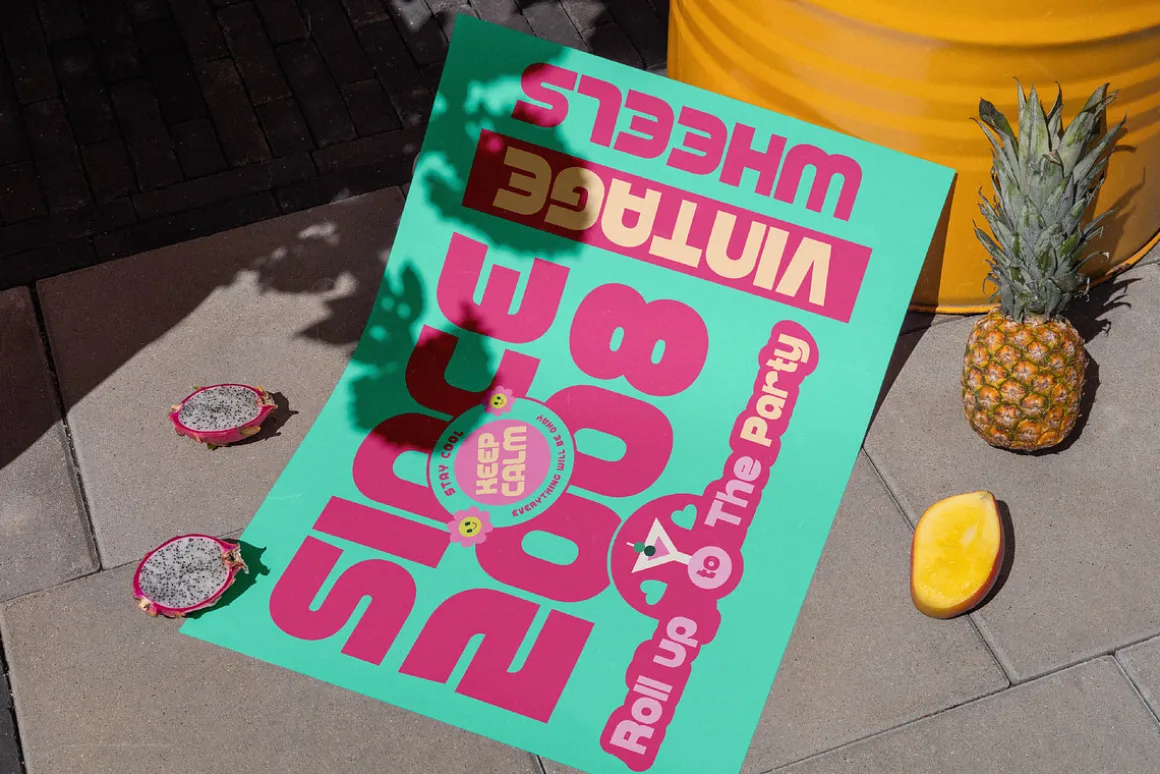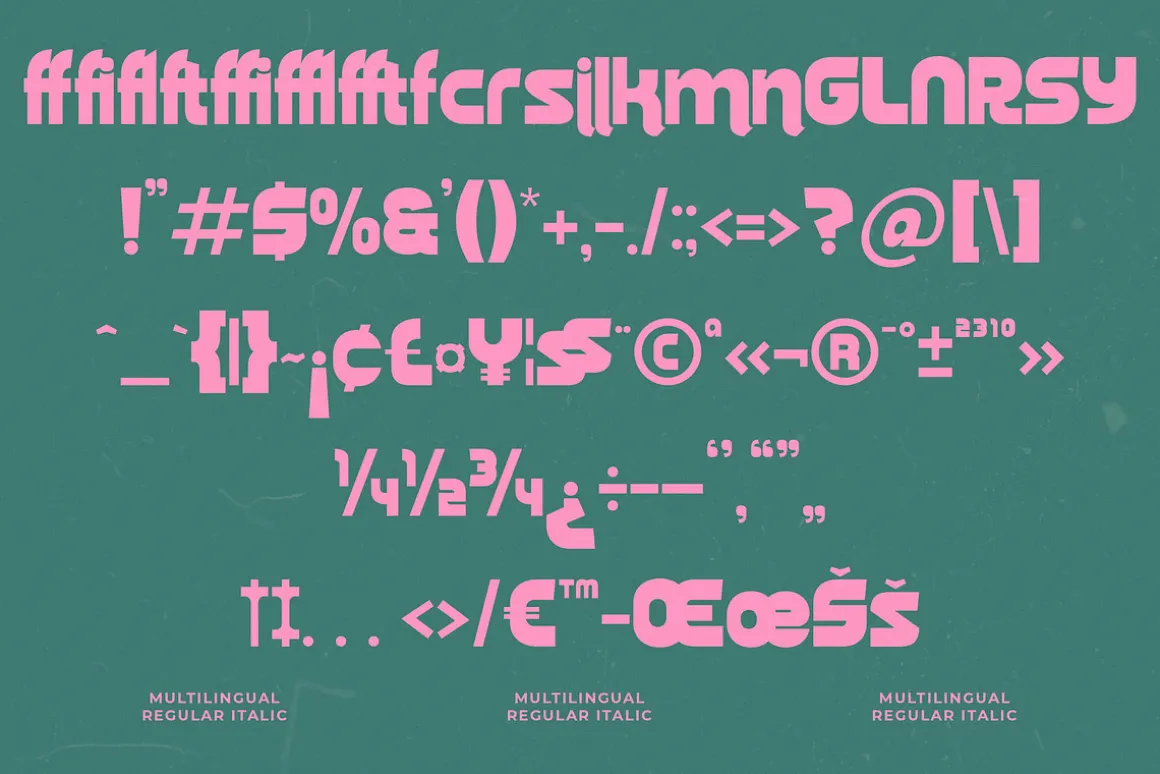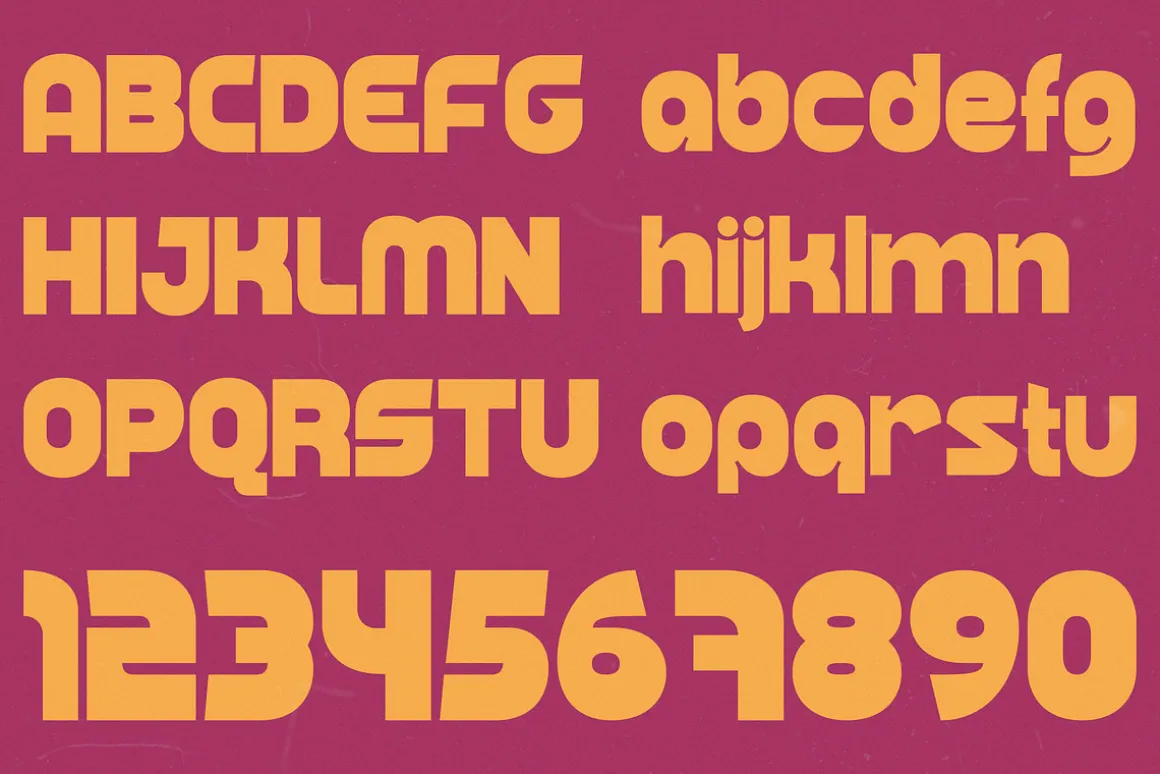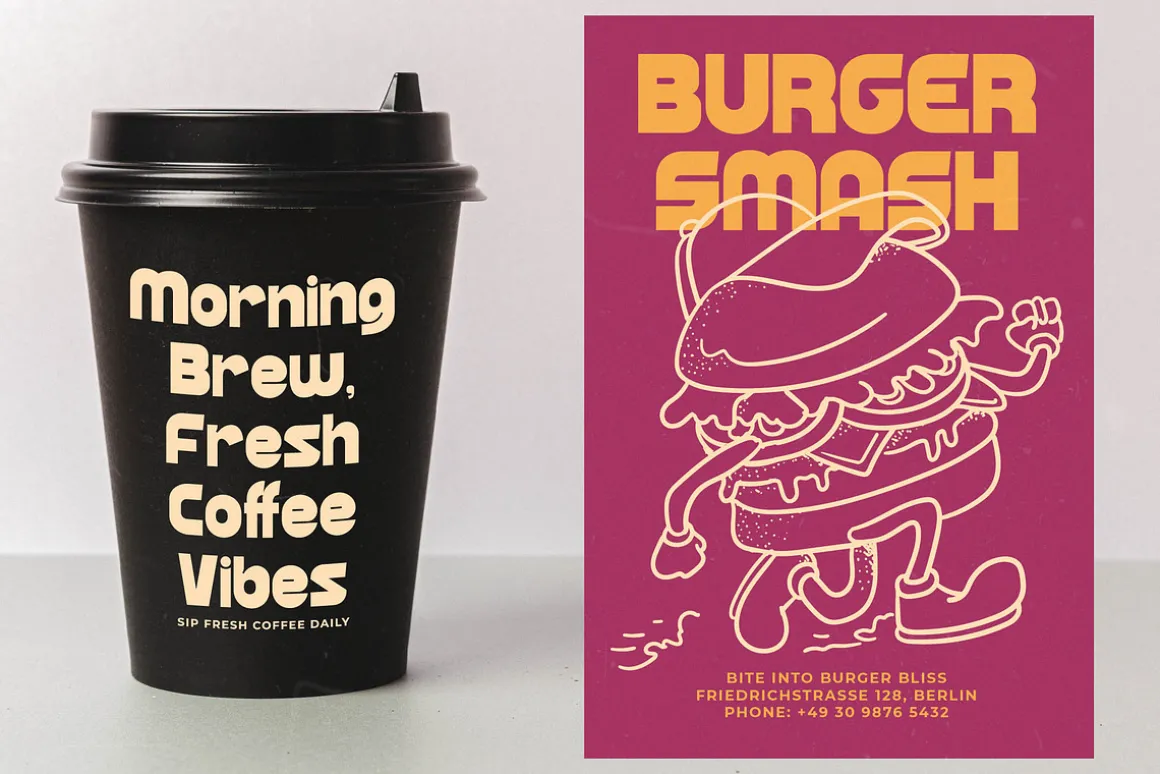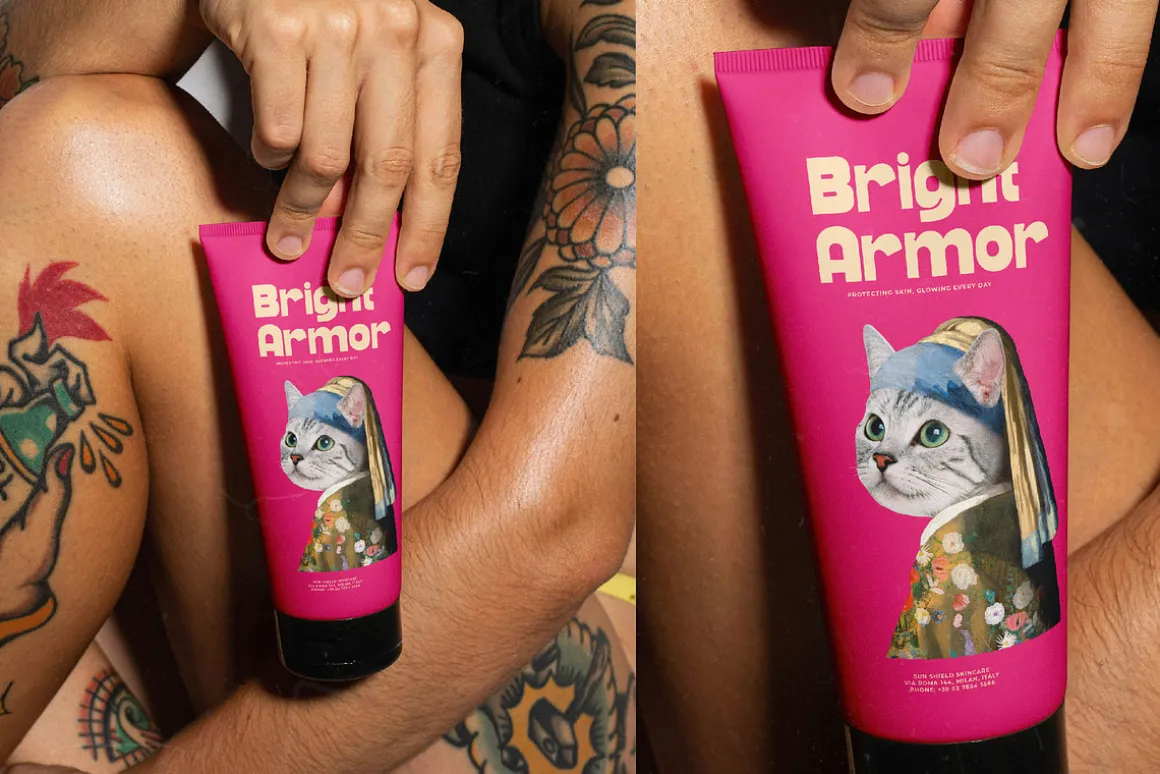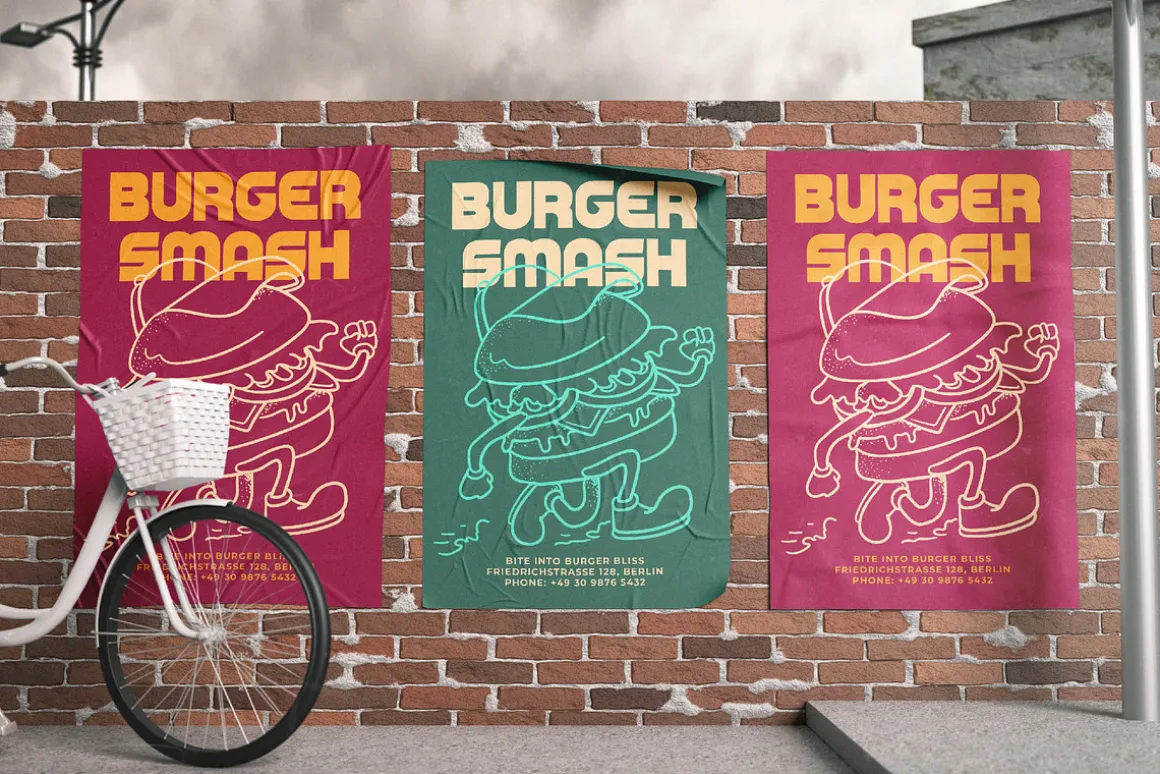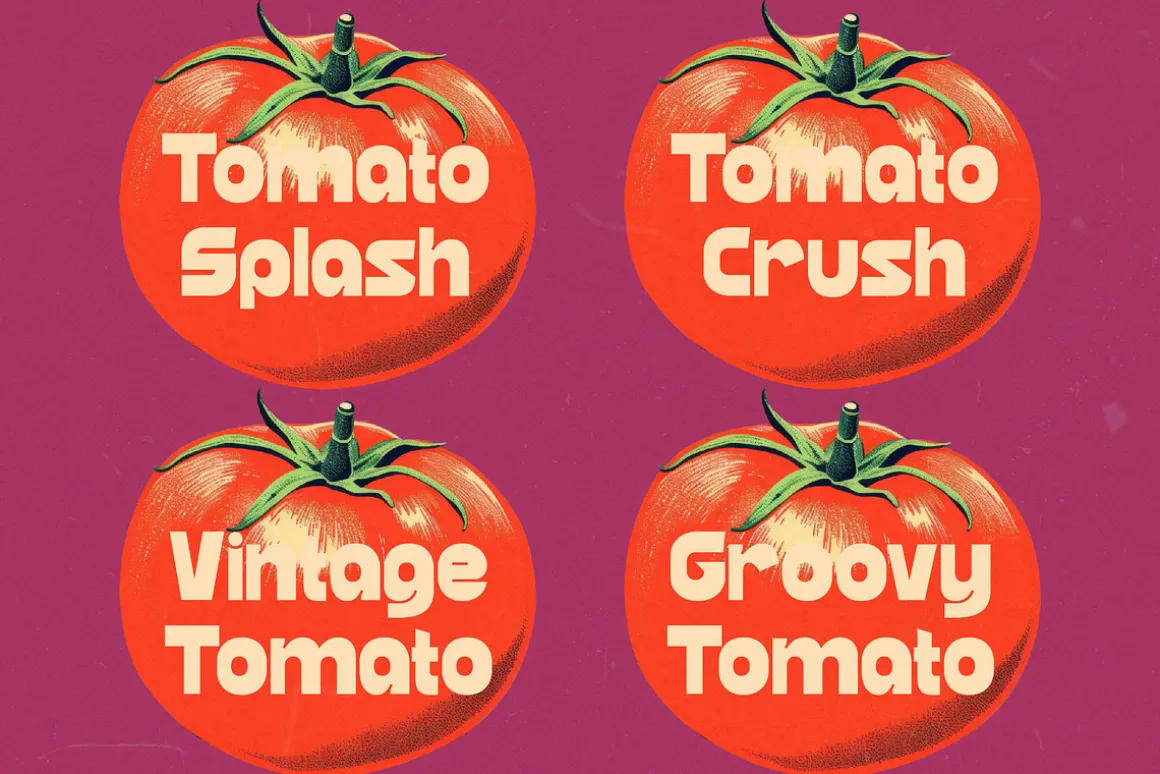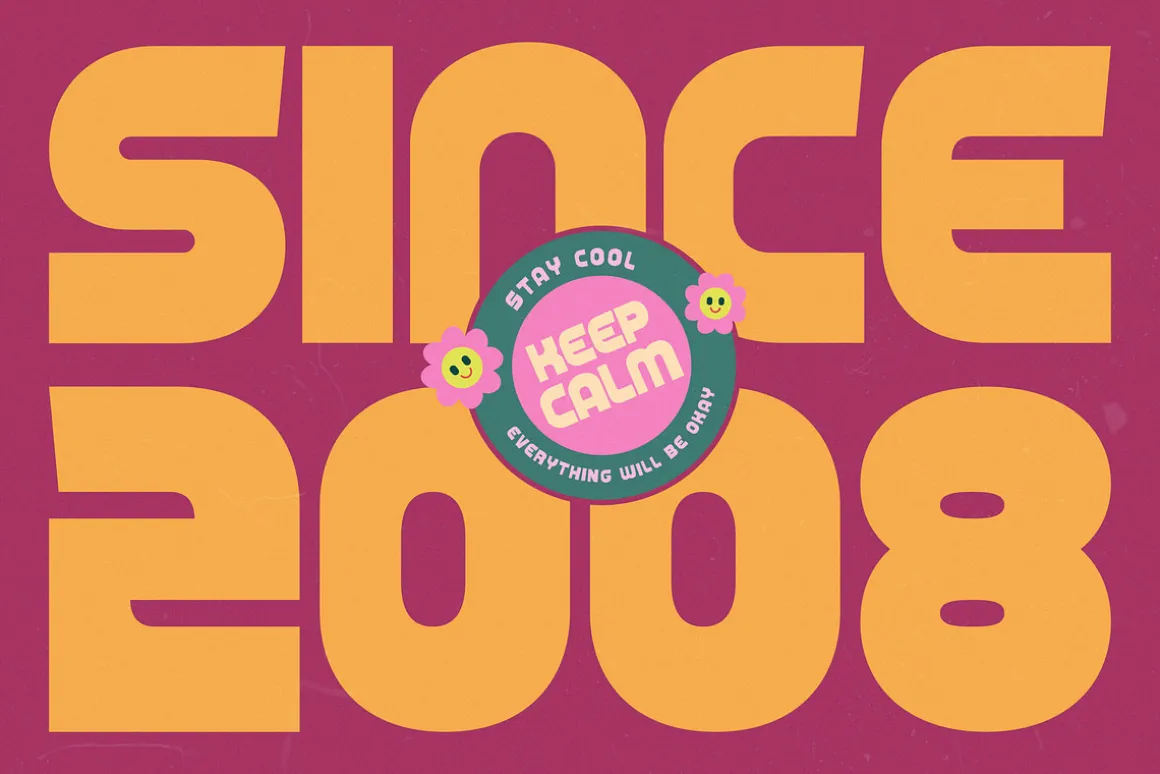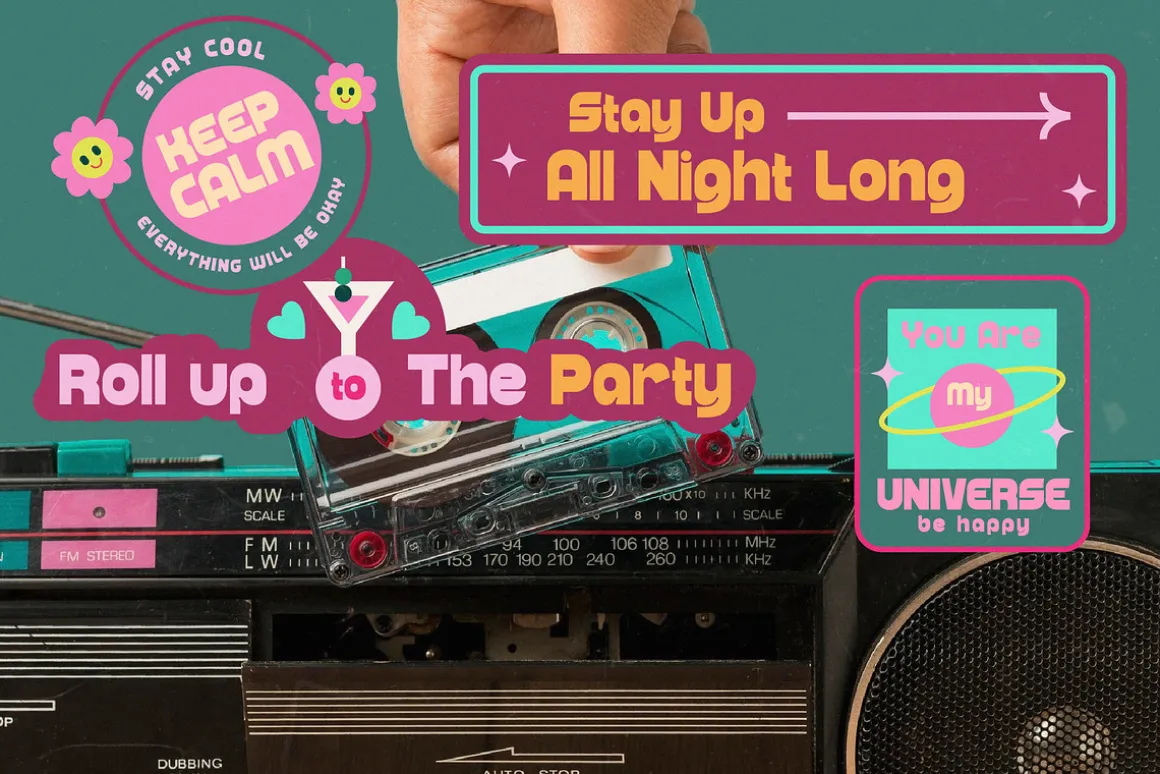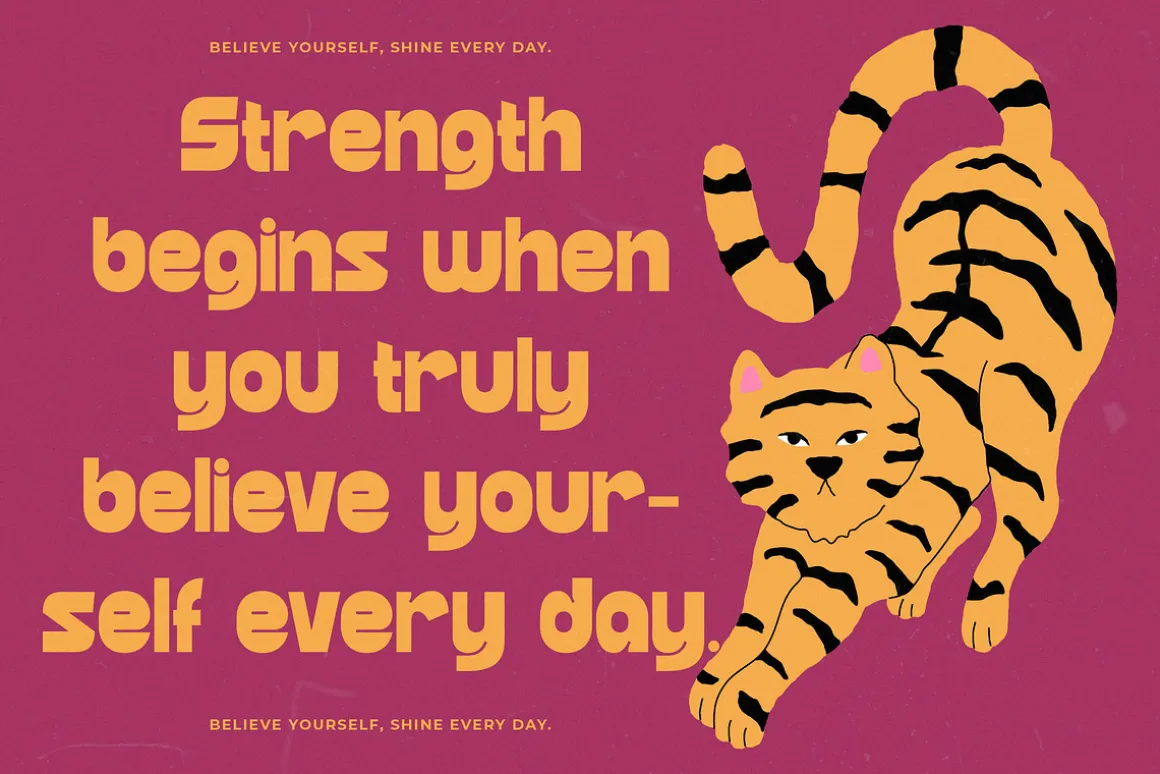
Step into a world of bold nostalgia with Grand Nights, a typeface that captures the essence of late-night creativity and cosmic wonder. This font strikes the perfect balance between vintage charm and contemporary edge, making it an essential tool for any visionary designer seeking a unique voice.
Inspired by the psychedelic poster art of the 1970s and the burgeoning futurism of the early space age, this typeface draws its power from chunky letterforms and unexpected curves. It feels like a transmission from a stylish past that never quite ended, blending organic flow with structured geometry for a truly timeless aesthetic.
This modern serif display packs a punch with its luxury typography feel and heavy weight. While it functions as a high-contrast serif, its true strength lies in its editorial font versatility and massive branding impact, ensuring your message is seen and felt across any digital or physical medium.
Riding the wave of the modern serif trend, this typeface fits perfectly within the current landscape of editorial display fonts. Designers are looking for character-driven typography that breaks away from the mundane, and this font delivers exactly that with its unique, funky personality and stylistic alternates.
Elevate your next logo design or high-end branding project with a typeface that demands attention in any editorial layout. It is equally at home in bold packaging concepts, unique wedding invitations with a retro twist, or avant-garde fashion spreads that require a touch of personality.
Unlock endless creative possibilities with the included ligatures and alternates that allow for custom-tailored headlines and bespoke wordmarks. The font also features extensive multilingual support and a full set of international characters, providing global reach for your creative endeavors.